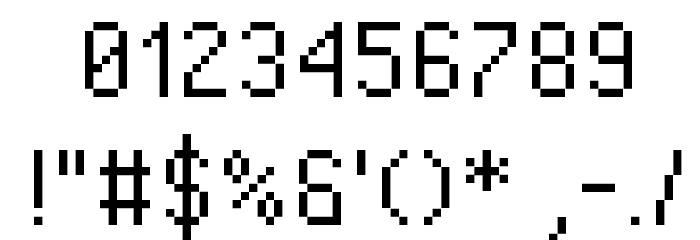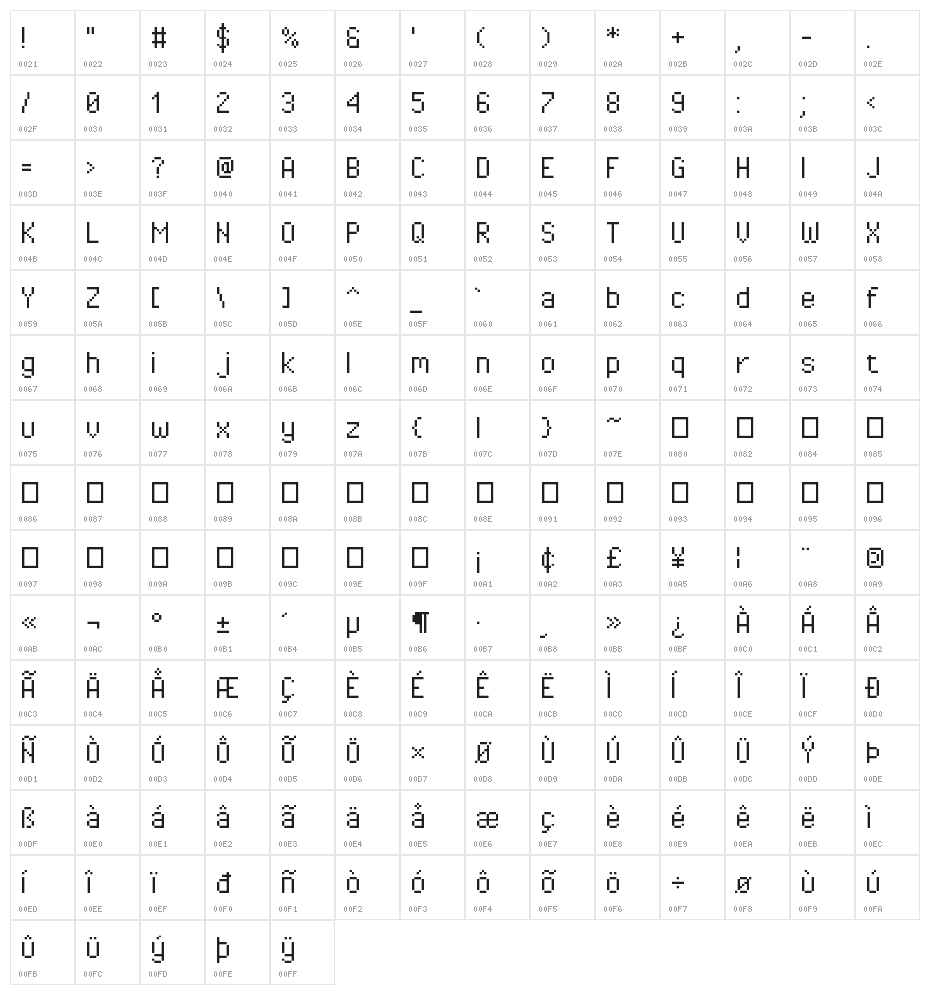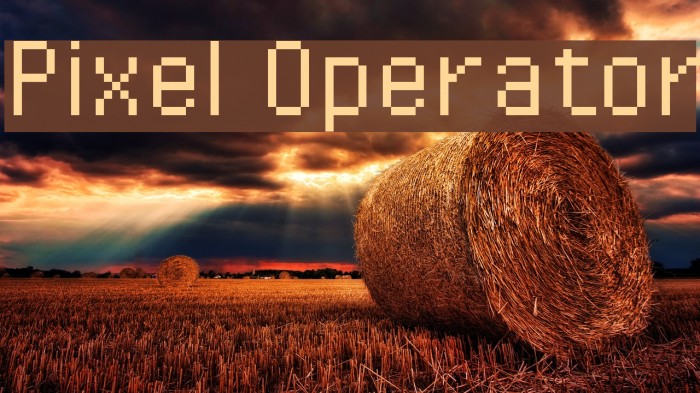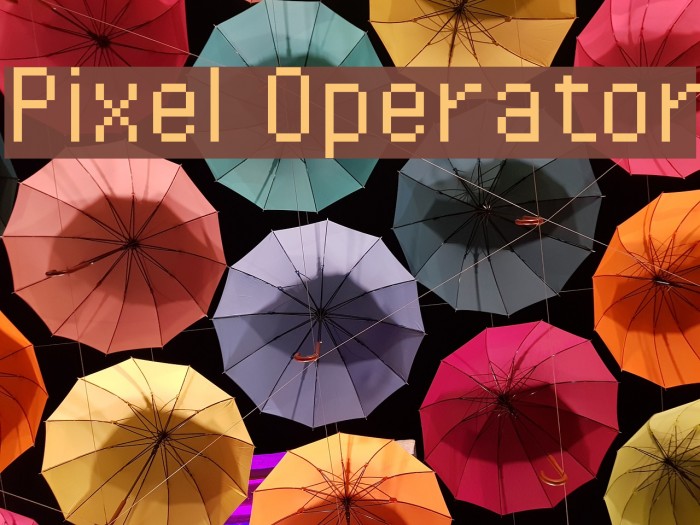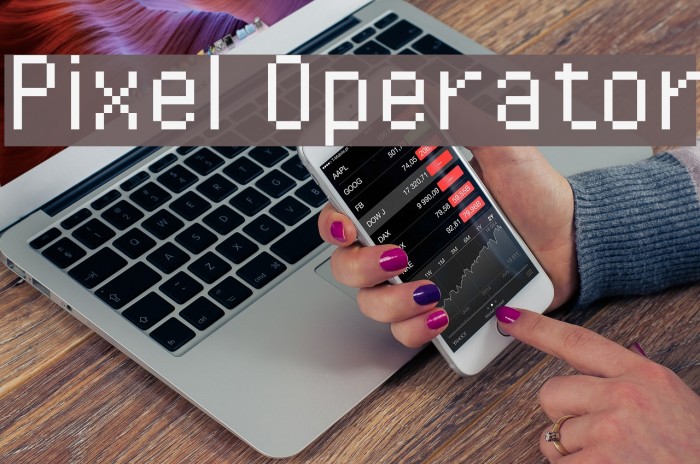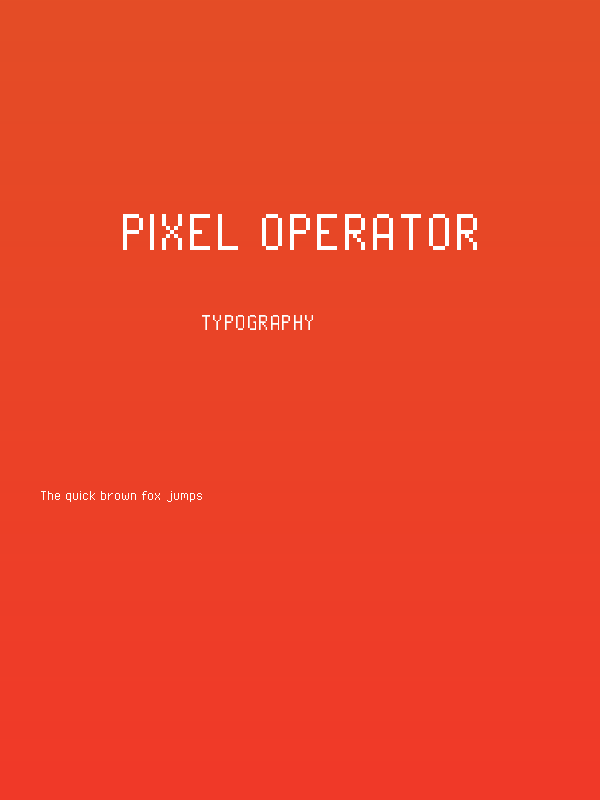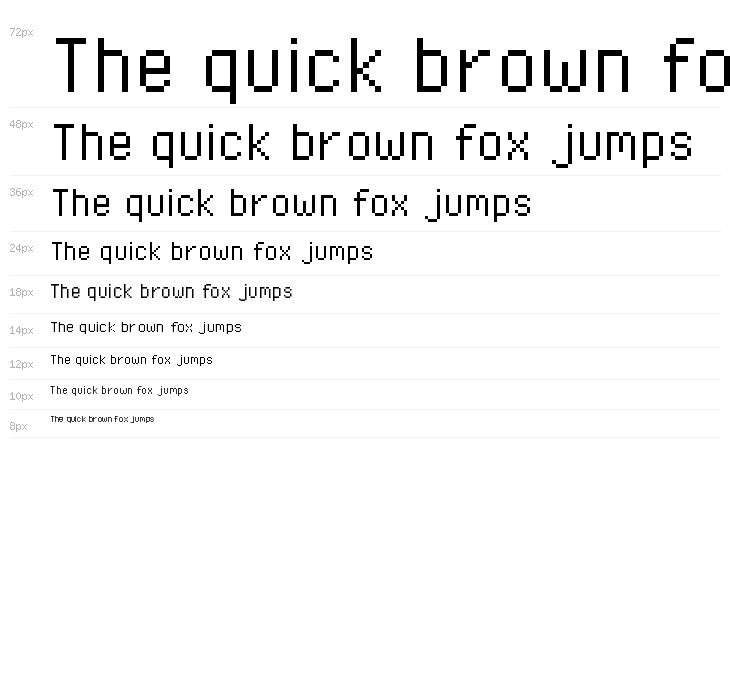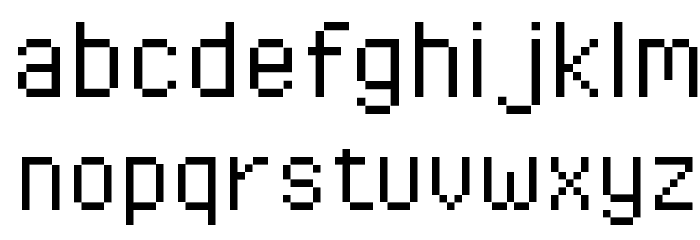
Pixel Operator Font
Pixel Operator Description
This font features a pixelated, blocky design reminiscent of early digital displays and video games. Each character is constructed with a grid-like precision, giving it a distinctly retro and digital aesthetic. The uppercase and lowercase letters maintain a consistent height, contributing to a uniform appearance. The numbers and special characters follow the same pixelated style, ensuring a cohesive look across all elements. This font is highly legible at small sizes, making it ideal for digital interfaces or projects that aim to evoke a sense of nostalgia for the early days of computing.